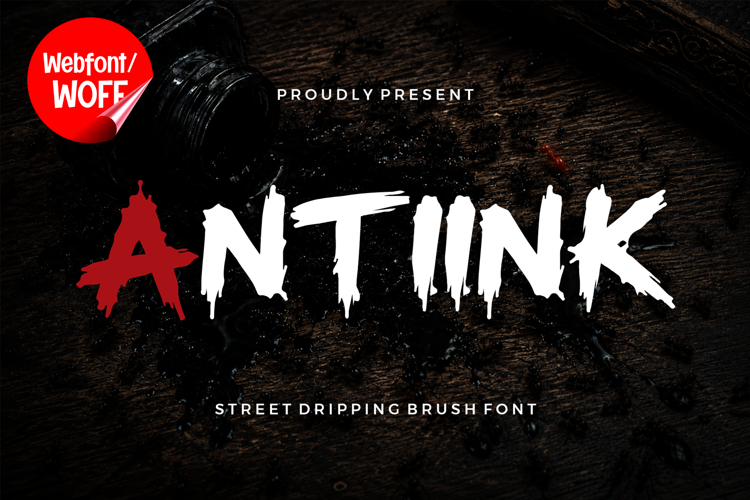
Antiink | Urban Dripping Webfont
Antiink is a bold street dripping brush webfont designed to bring underground urban energy into modern digital experiences. Inspired by graffiti culture, expressive brush lettering, street tagging, and rebellious visual aesthetics, Antiink combines rough handcrafted strokes with dripping ink textures to create typography filled with attitude and bold personality.
The font delivers strong visual impact while maintaining readability across digital platforms. Its aggressive brush style and dripping forms make typography feel raw, energetic, and authentic, suitable for websites, gaming visuals, music promotions, online branding, esports graphics, social media campaigns, and modern streetwear content.
Antiink transforms digital typography into expressive urban visuals with handcrafted graffiti atmosphere and modern street-inspired aesthetics.
Features- Uppercase Characters
- Lowercase Characters
- Numbers & Punctuation
- Dripping Brush Style
- Rough Urban Texture
- Street Art Aesthetic
- Bold Digital Presence
- Handcrafted Typography Character
Perfect for music promotions, gaming interfaces, YouTube banners, urban websites, streetwear campaigns, digital posters, alternative branding, social media visuals, and edgy online presentations.
The rough brush strokes and dripping details create typography that instantly captures attention. Antiink works beautifully in large web headlines, bold advertising visuals, dark urban layouts, and creative digital branding systems.
Inspired by underground graffiti walls, street art culture, punk aesthetics, and modern urban creativity, Antiink brings authentic street typography into digital design projects. Its expressive brush texture helps create memorable compositions with strong visual attitude and handcrafted energy.
The multilingual support allows broader creative communication across multiple languages, while numbers and punctuation complete professional typography systems for modern digital branding.
Antiink is ideal for creators seeking aggressive brush typography with gritty urban personality and strong display aesthetics suitable for contemporary digital culture.